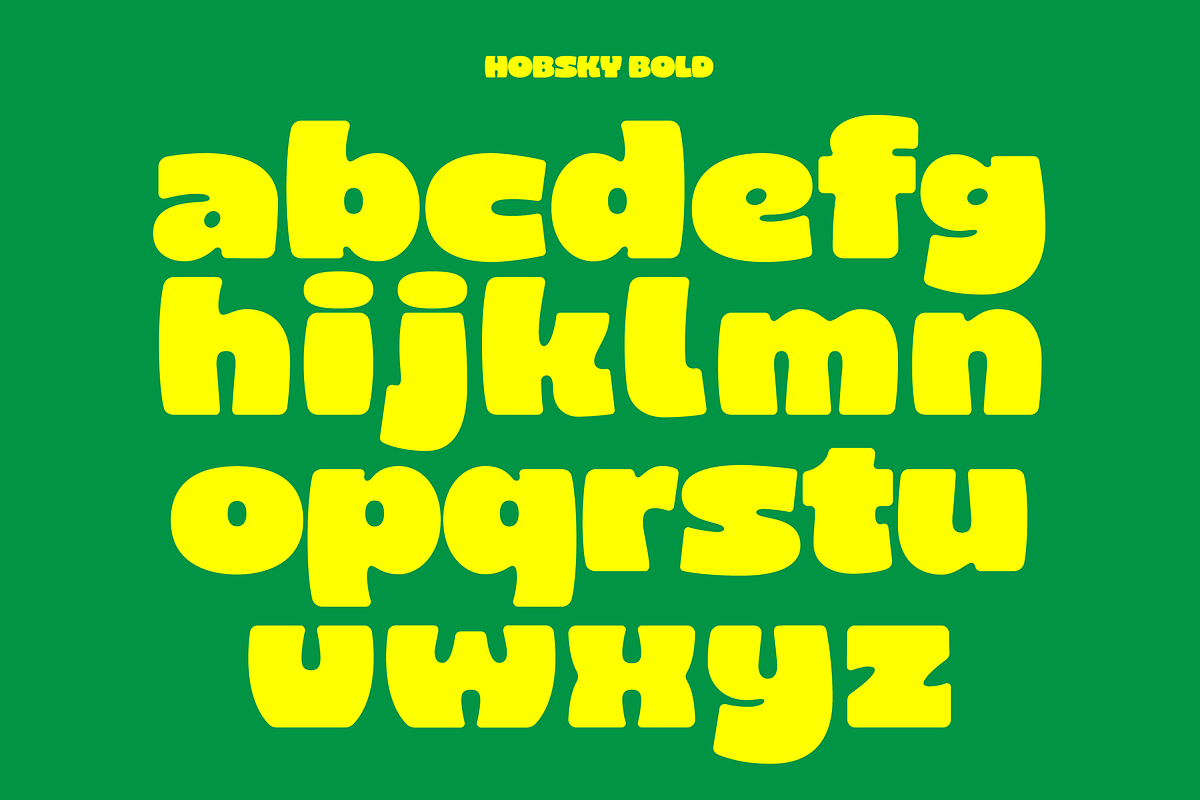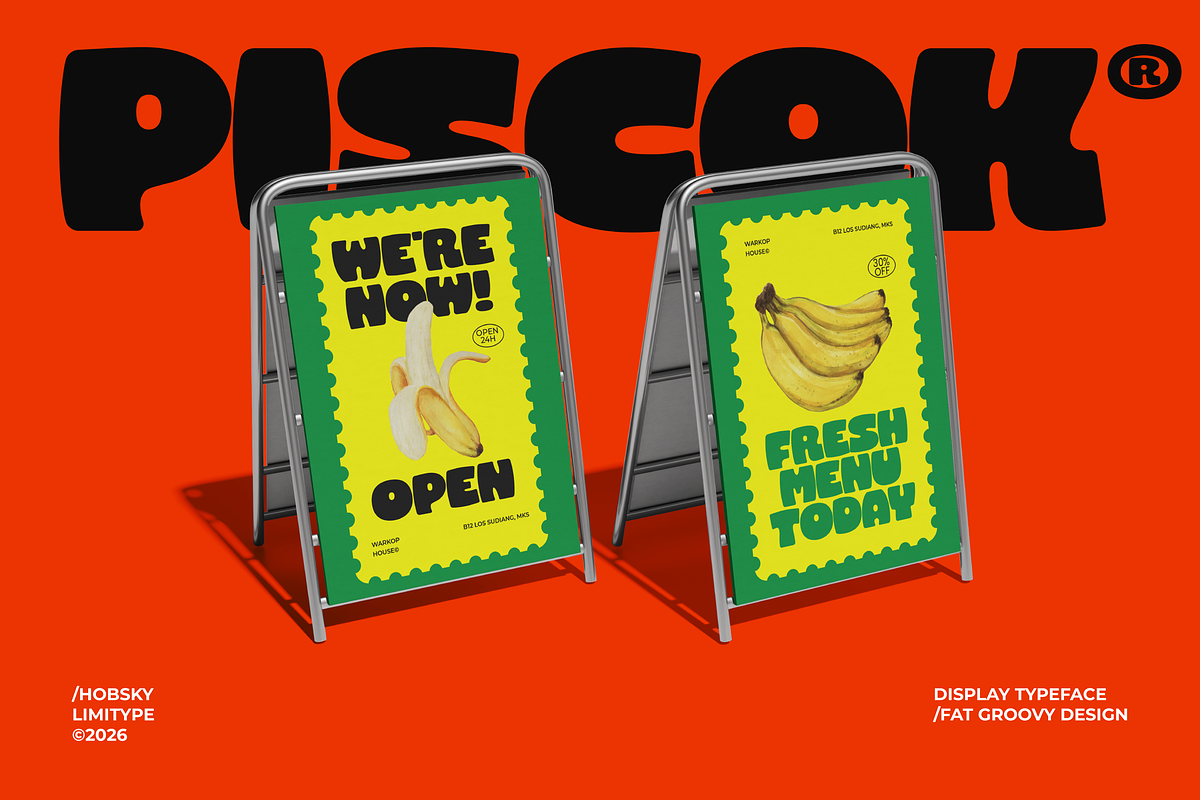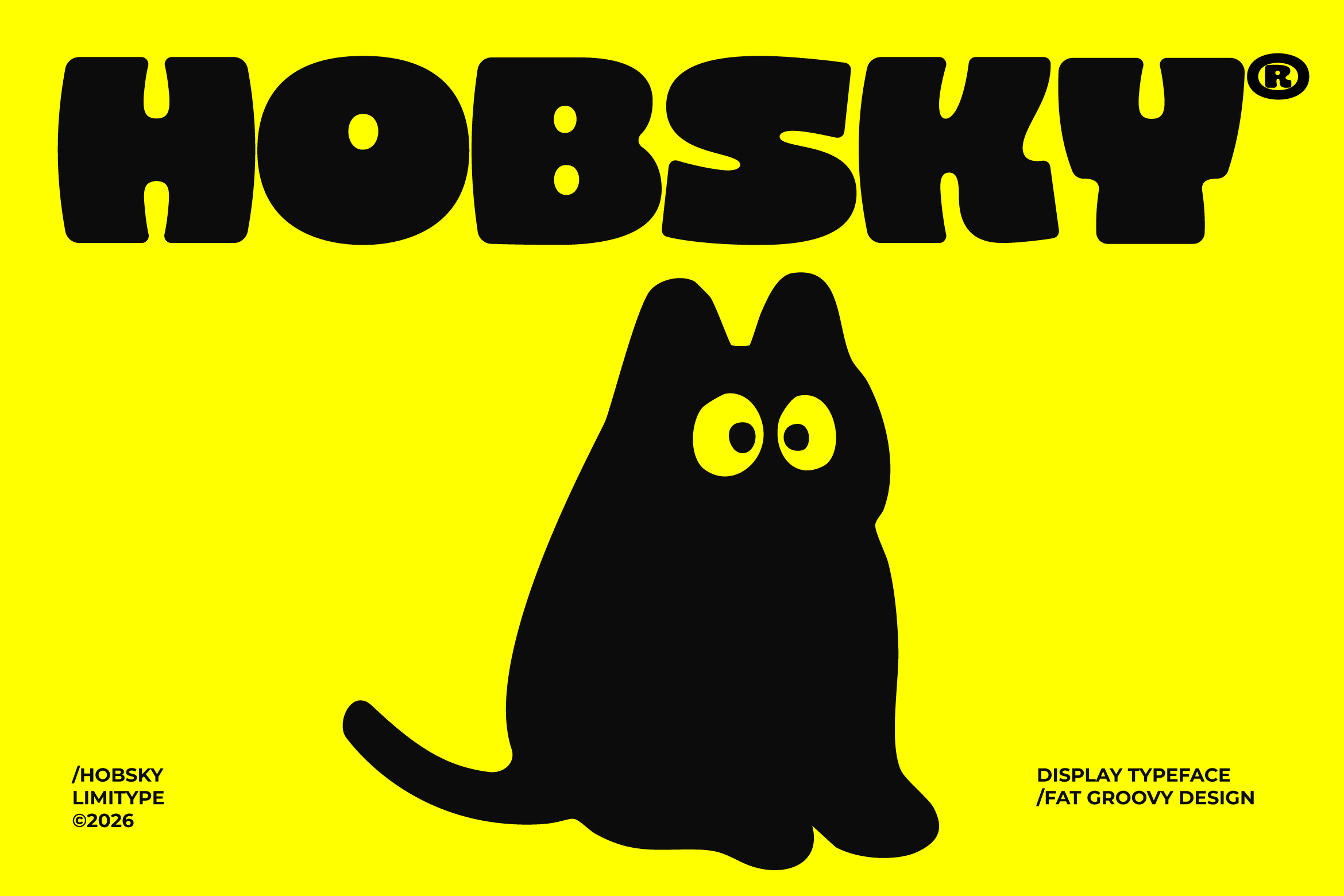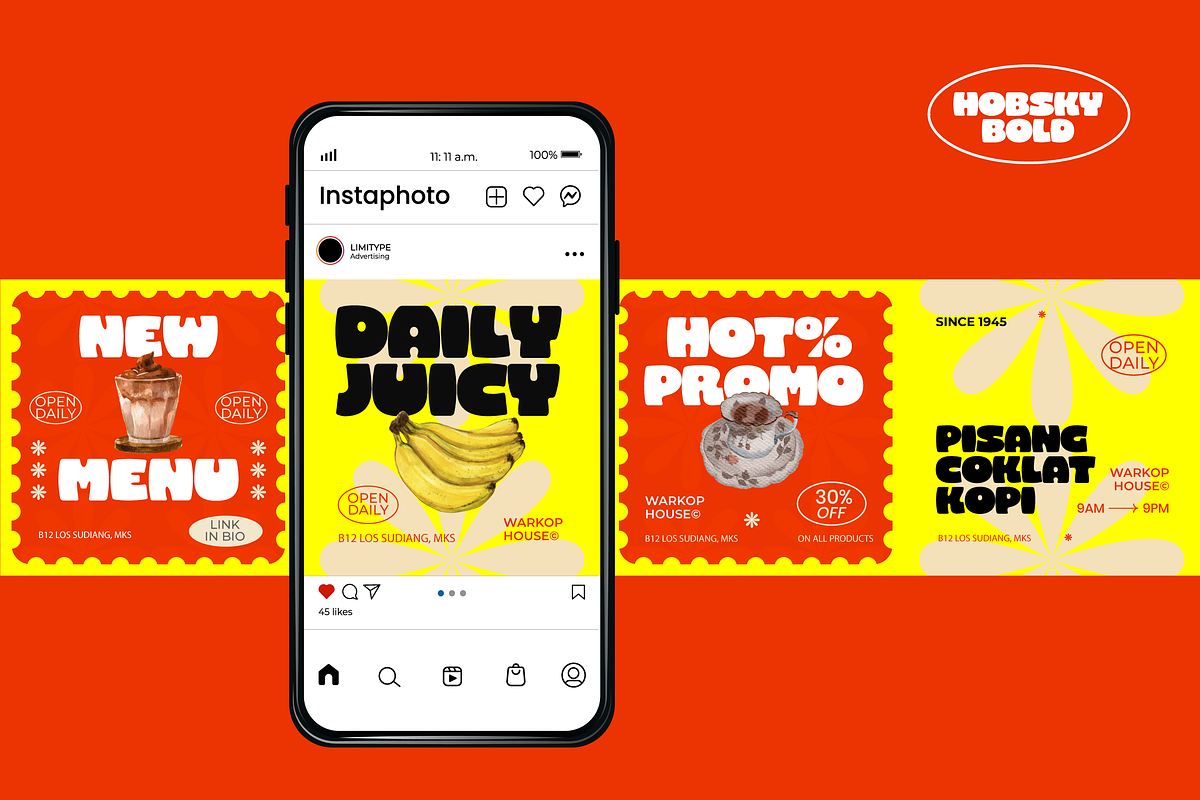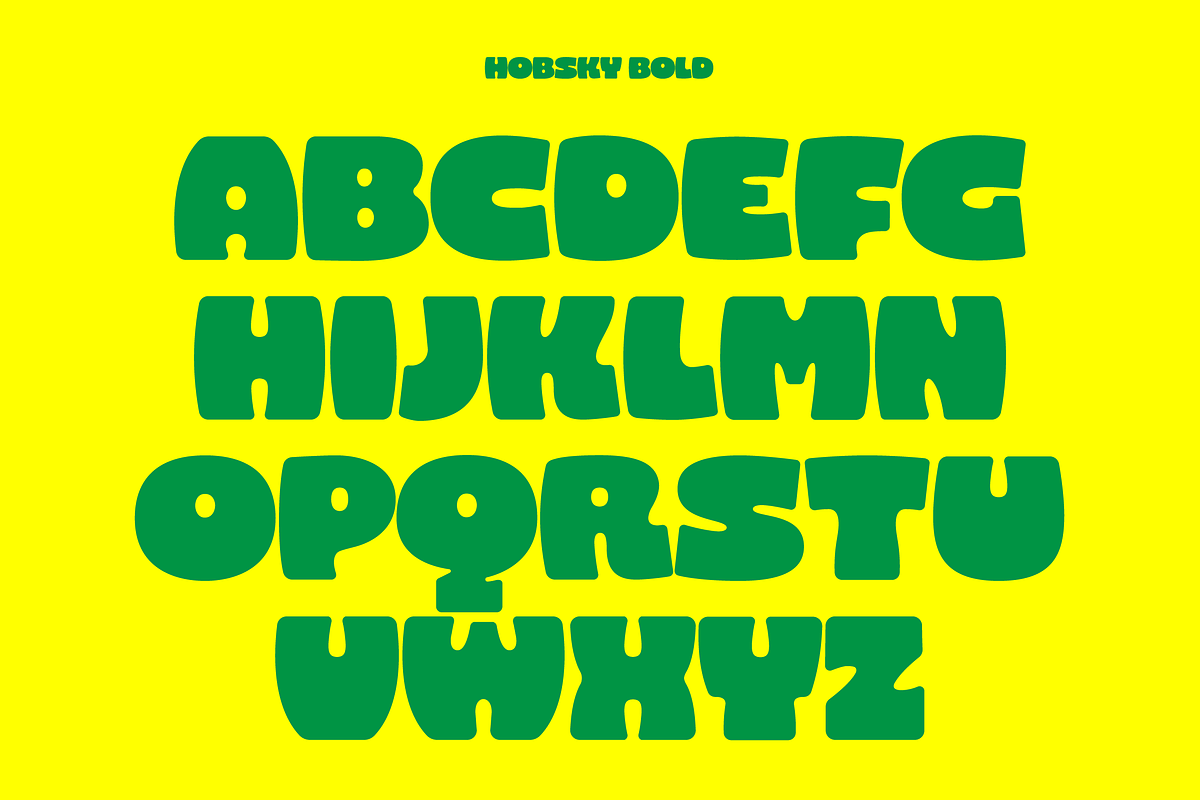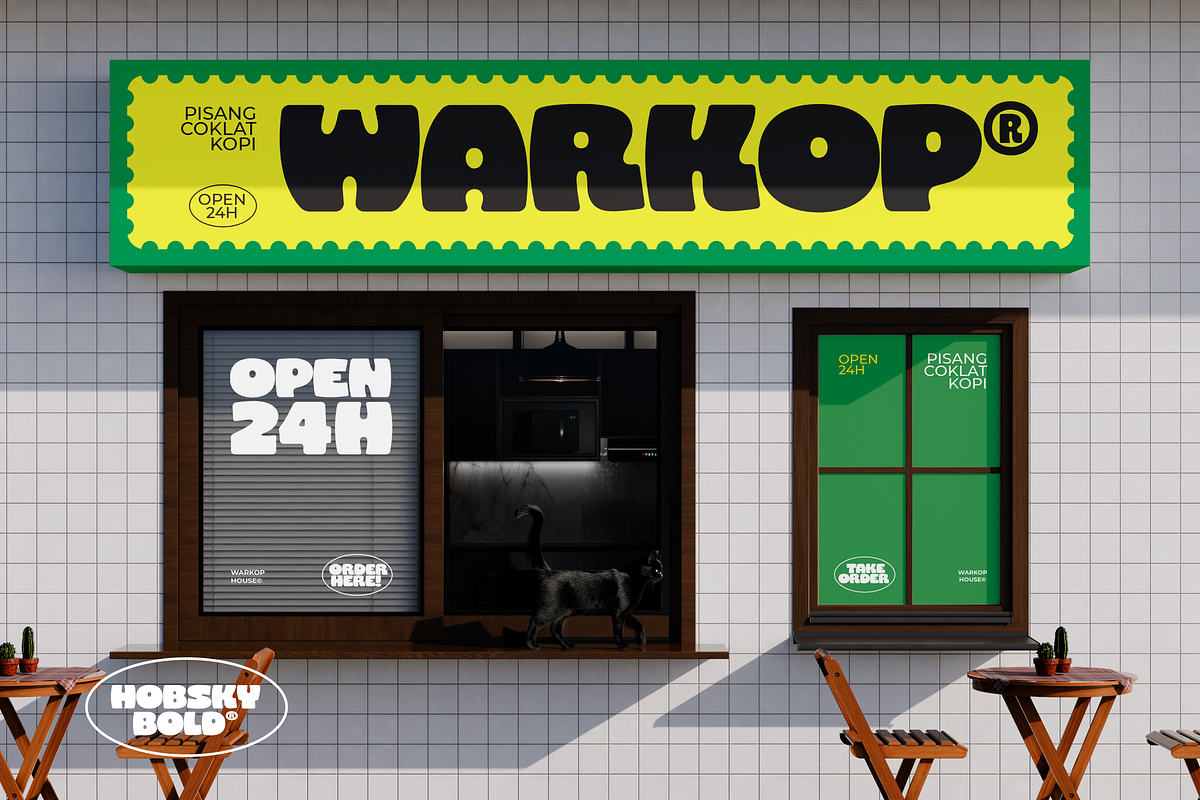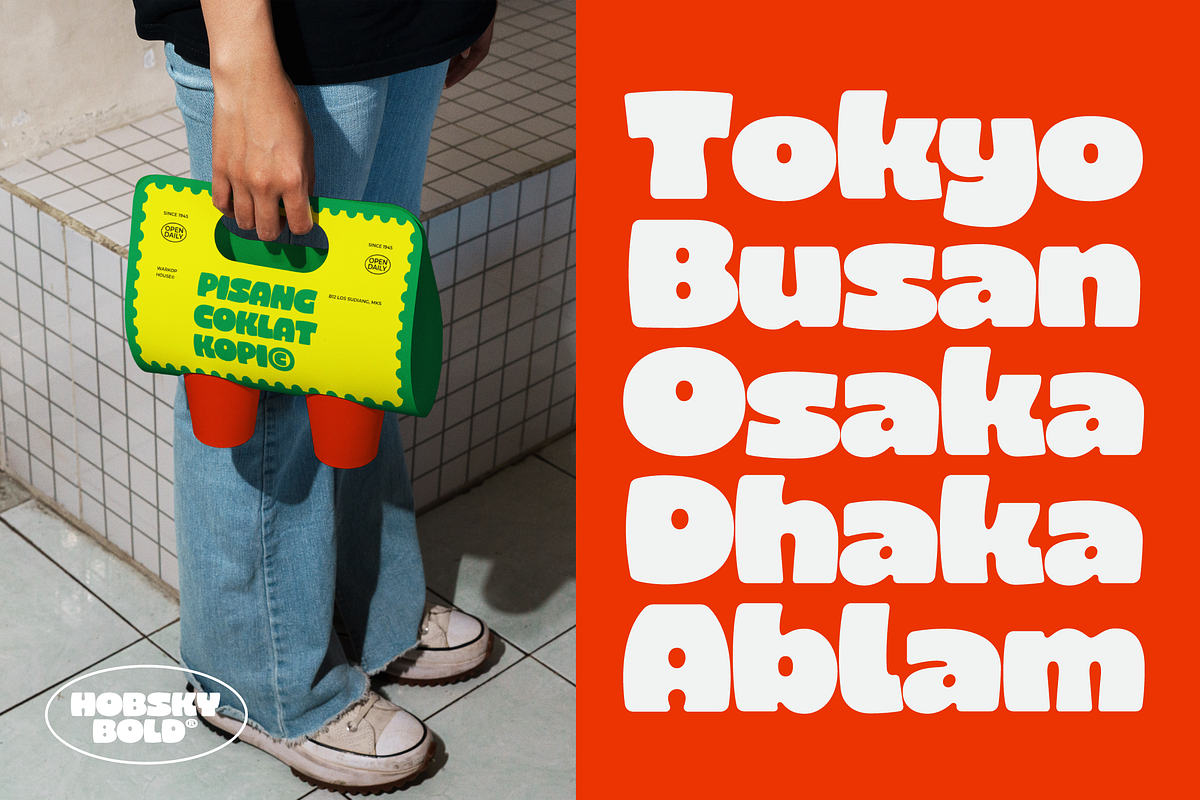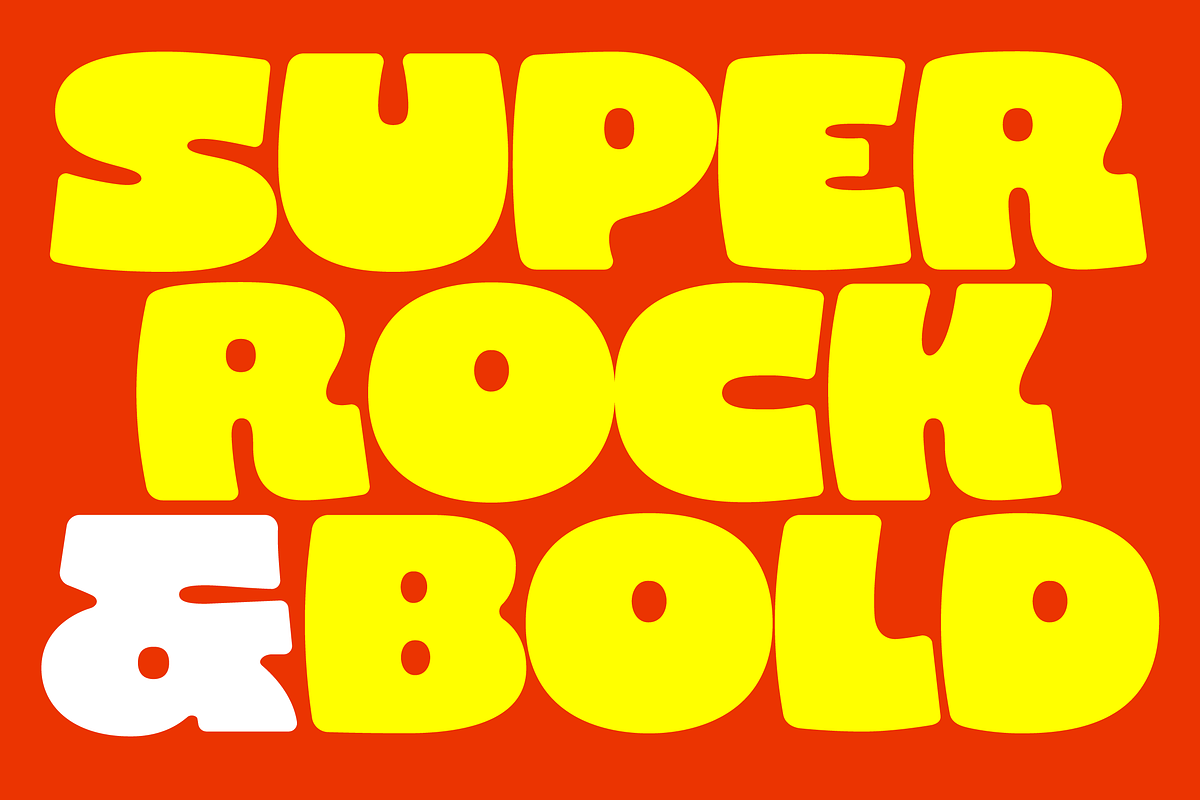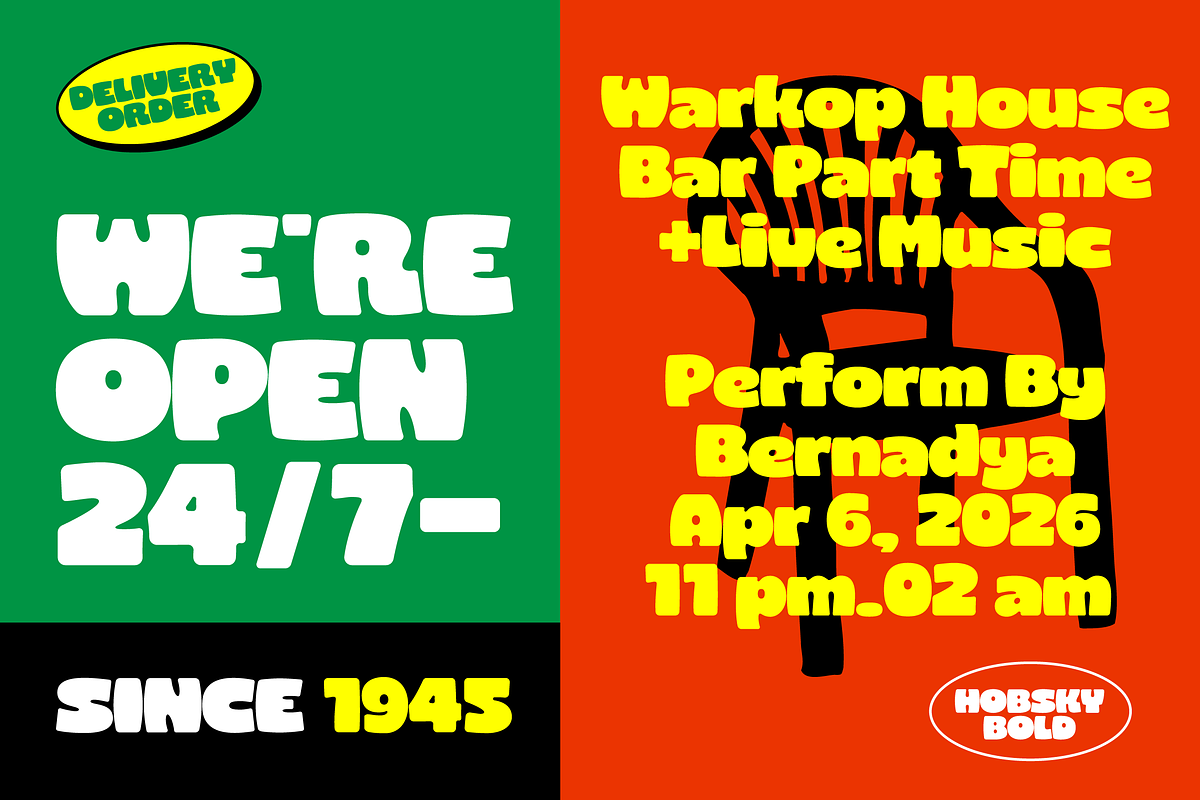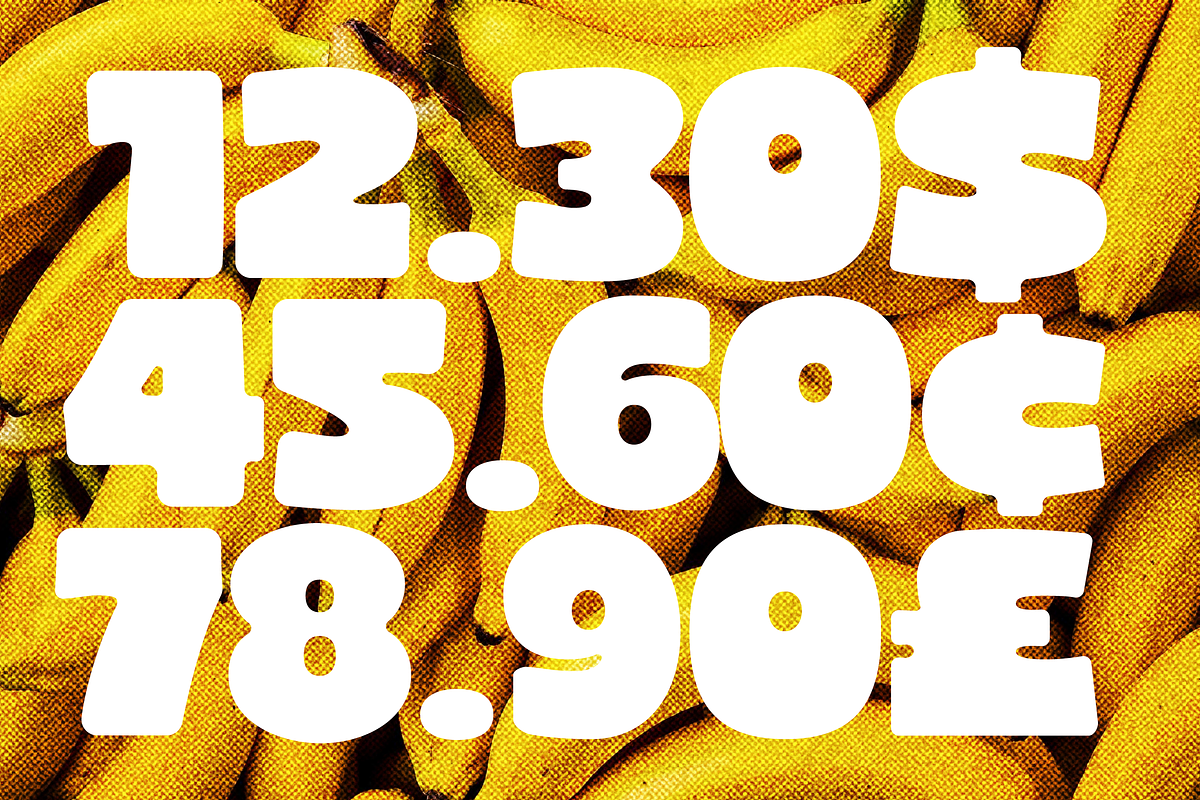
Hobsky - Bold Font
Hobsky is a bold display font that brings a groovy and playful energy into every design. Its chunky forms and lively curves create a fun yet striking visual presence, making it perfect for branding, posters, packaging, and creative headlines. Designed to stand out, Hobsky delivers a retro inspired vibe with a modern twist, ideal for projects that demand attention and personality.